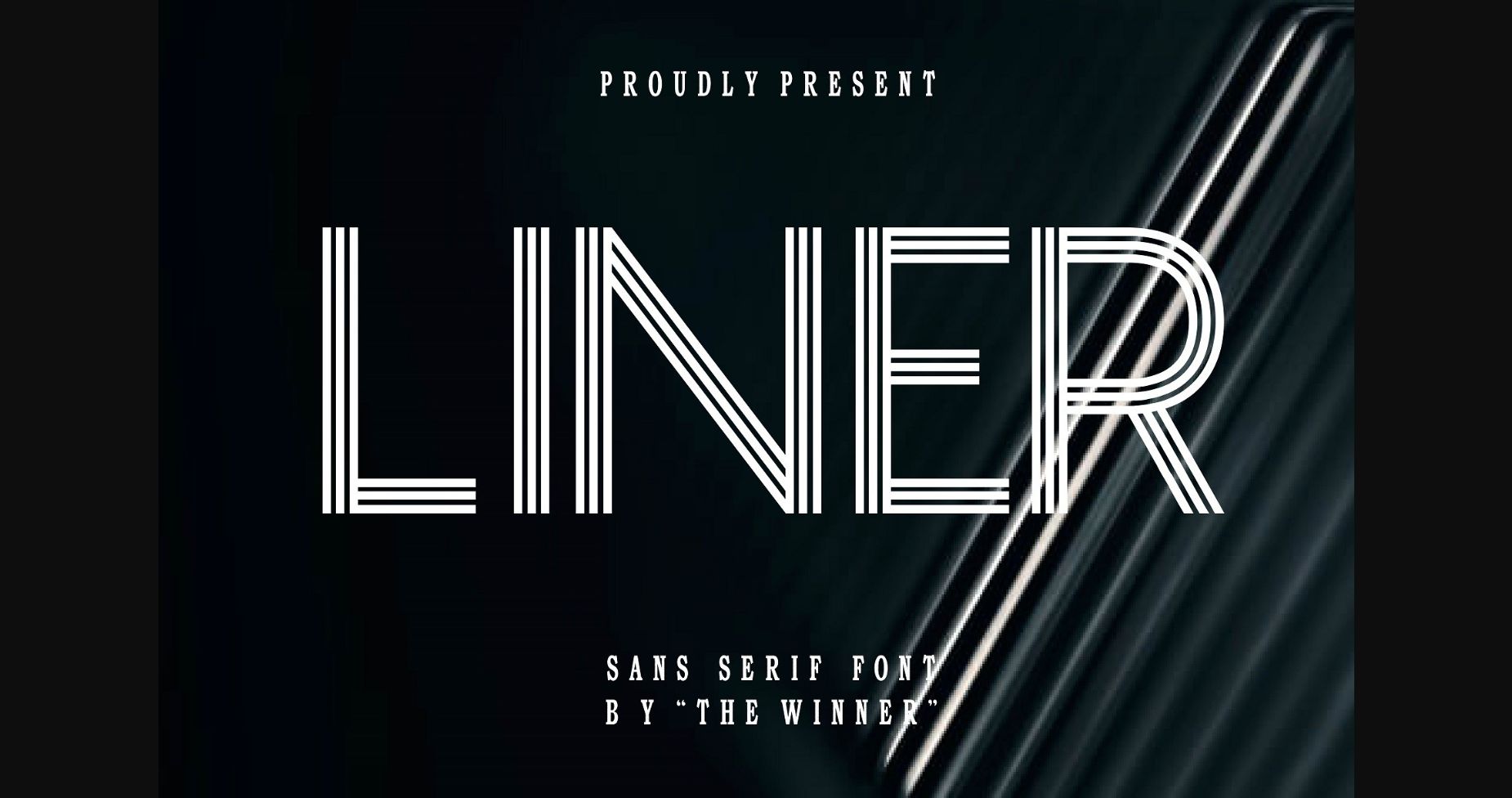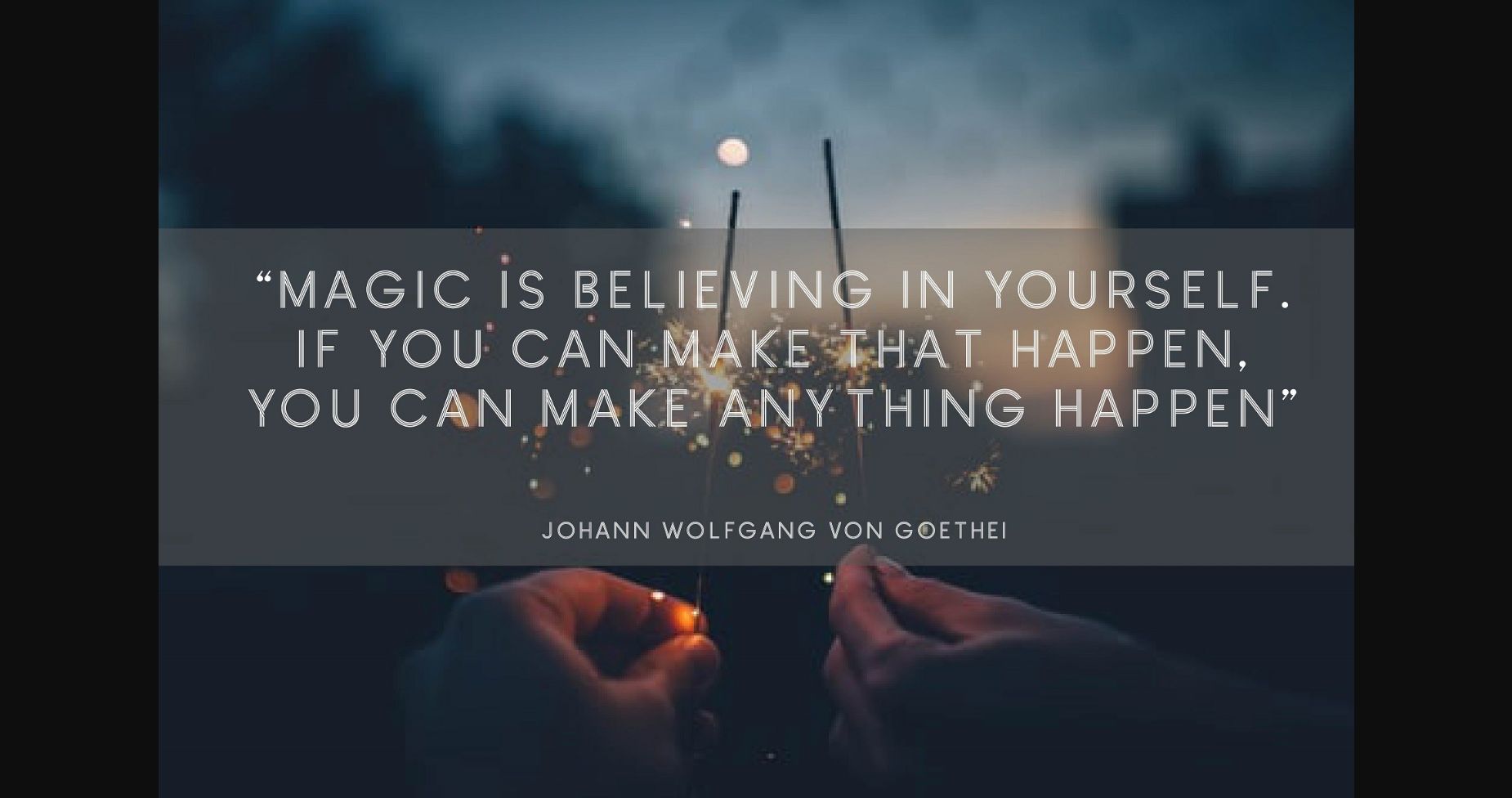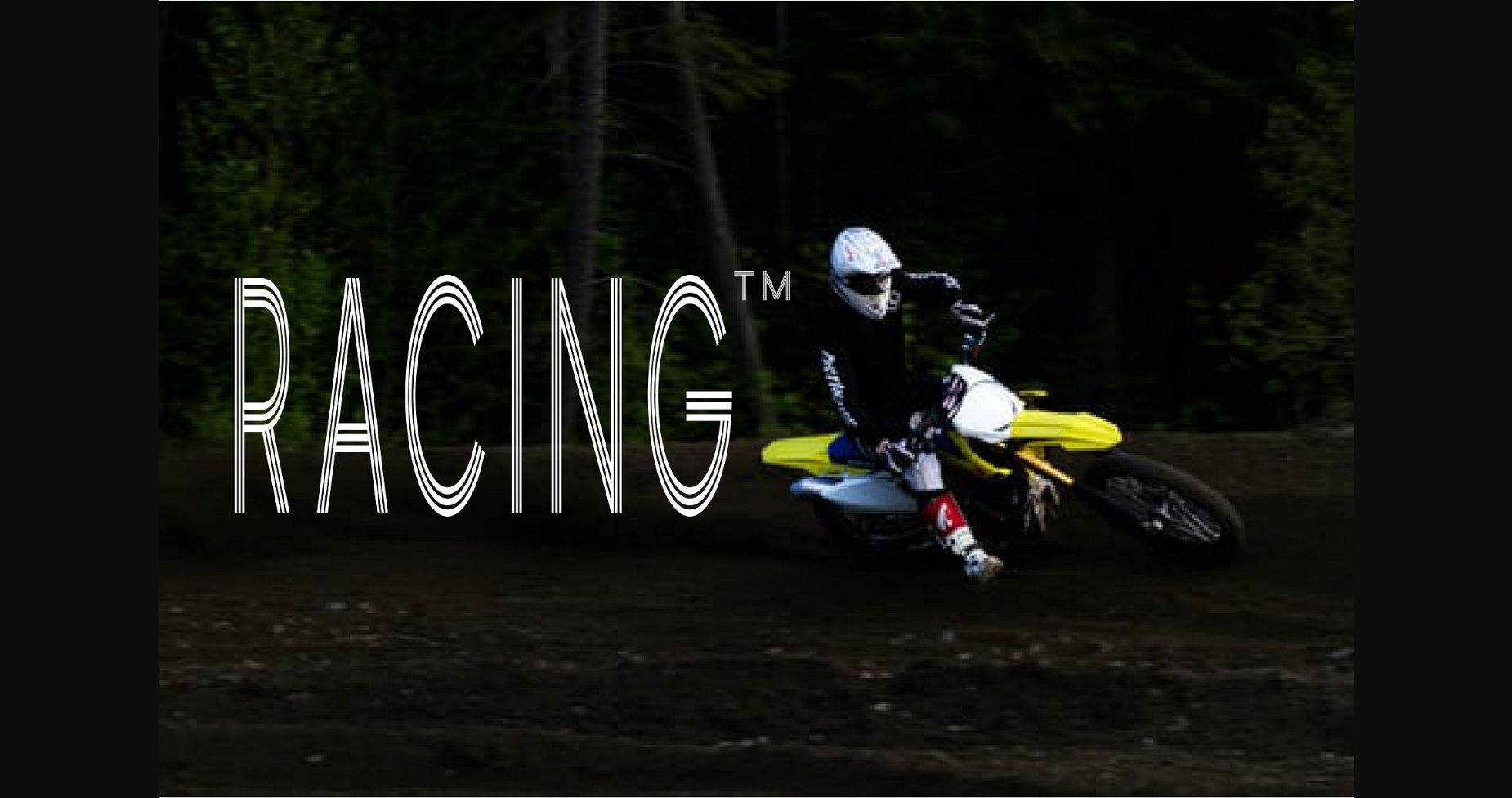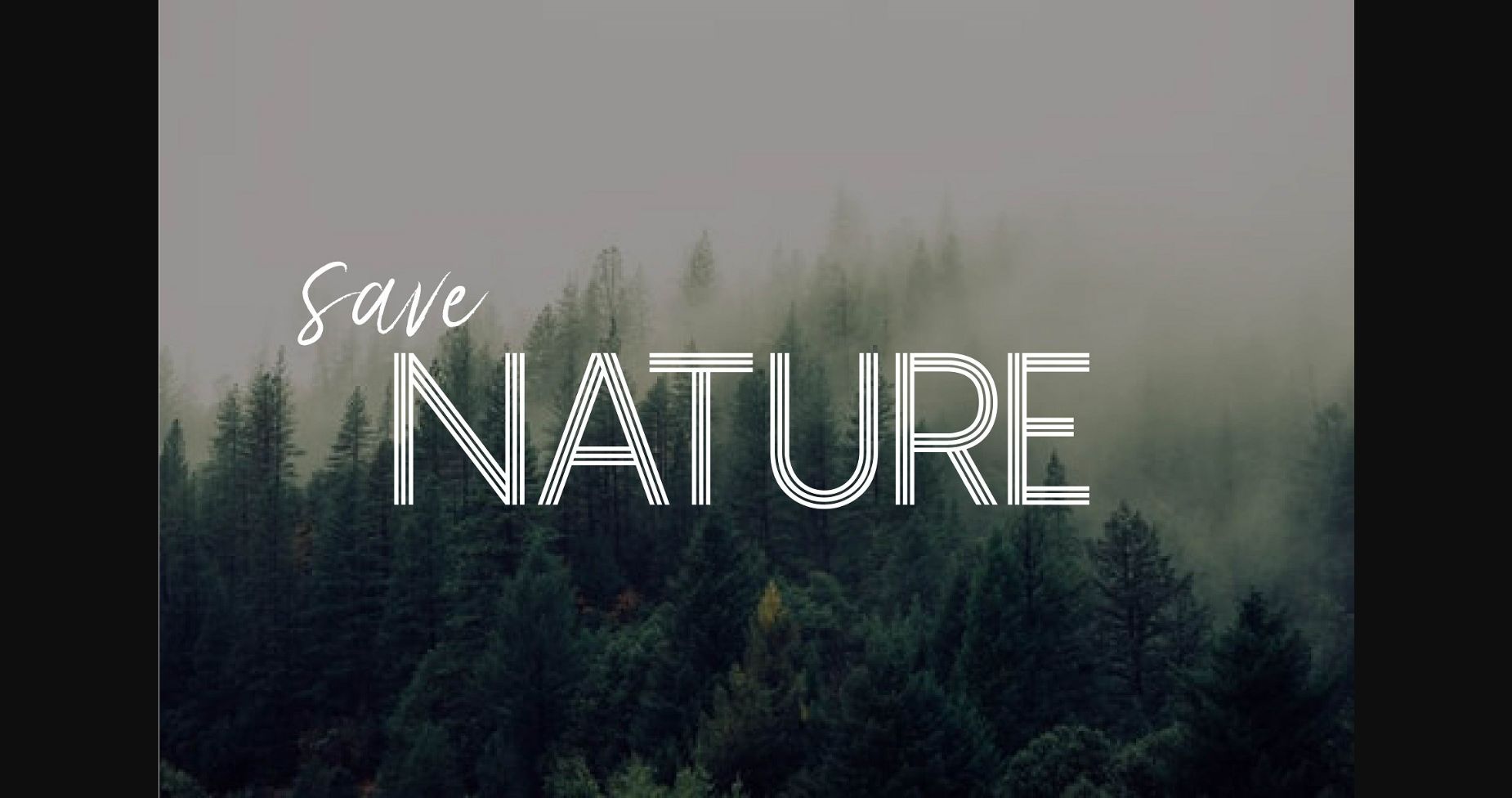
About Liner Font
Introducing Liner, a striped sans serif font. Itβs perfect for branding, product packaging, invitations, quotes, t-shirts, labels, posters, or any logo you want to develop. Make all your design projects more attractive and take your designs to the next level with Liner.